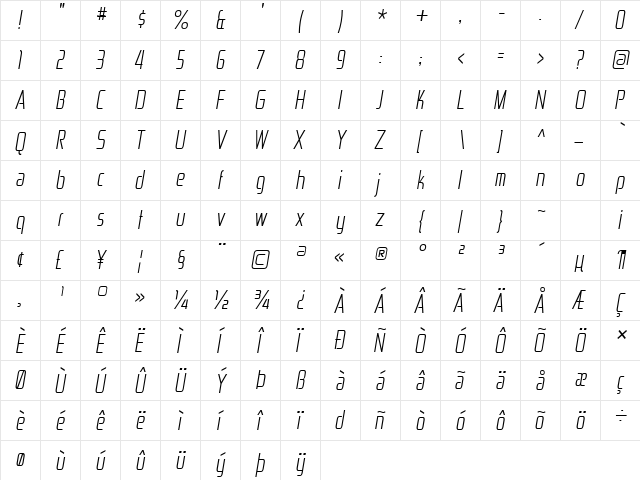
Zekton CdLt Italic
Design Context for Zekton CdLt Typeface
Zekton CdLt takes a measured approach to typography — its balanced proportions and neutral character make it a reliable workhorse for both digital and print work. Its italic angle brings a sense of urgency and motion to the letterforms.
Pro Tip: Try Zekton CdLt for annotation and caption copy alongside an upright companion — the contrast in angle creates a dynamic but ordered typographic system.